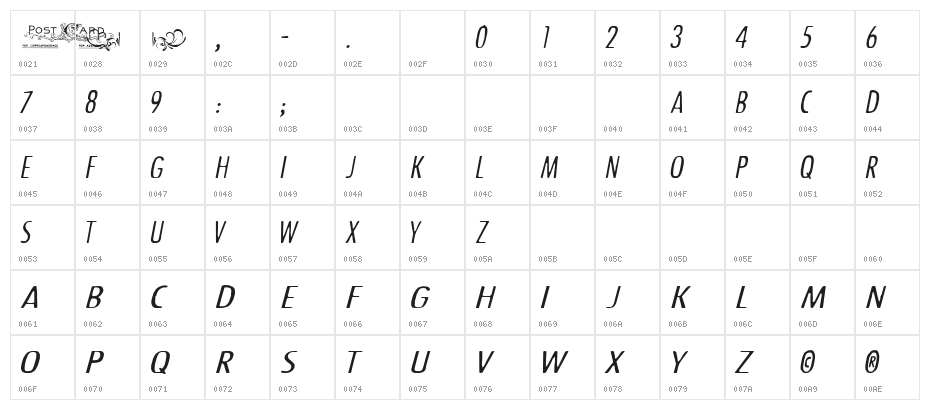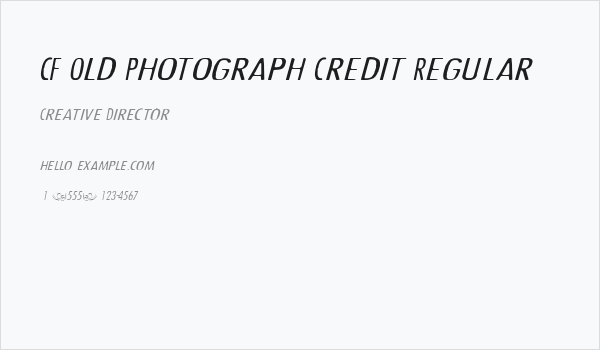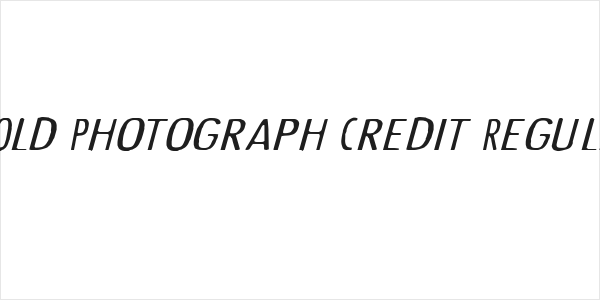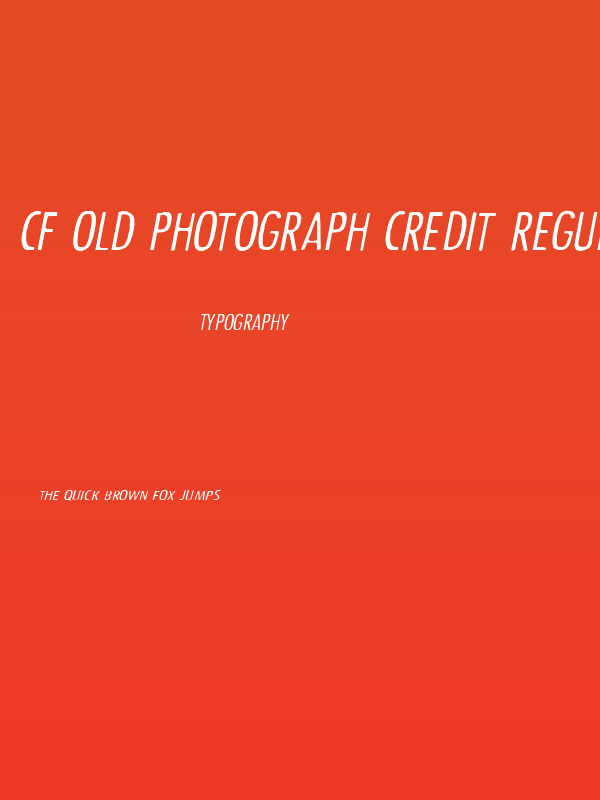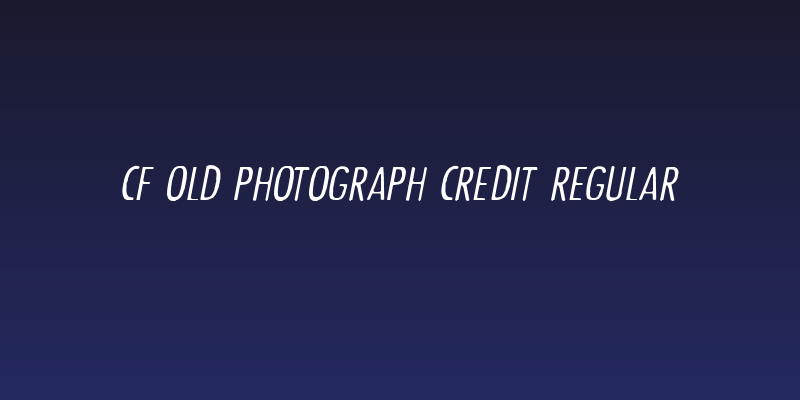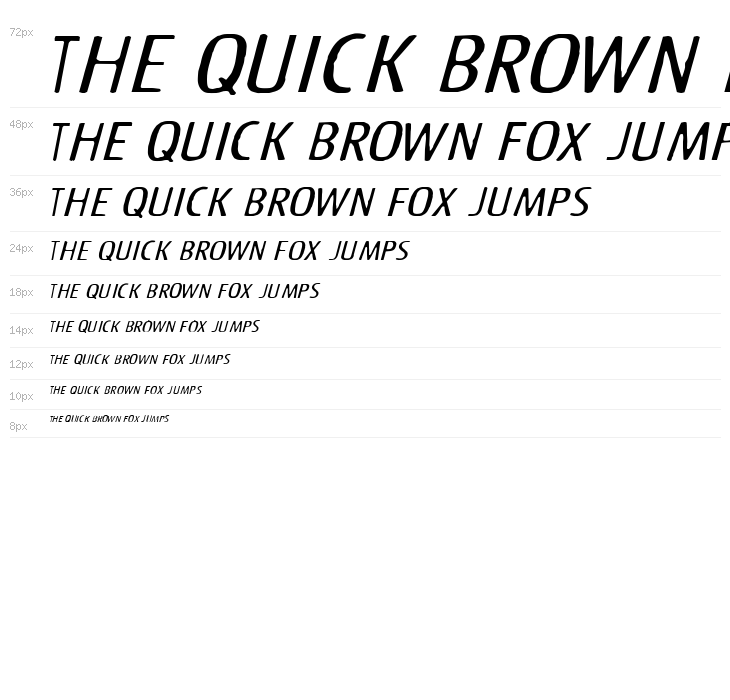
CF Old Photograph Credit Regular Font
CF Old Photograph Credit Regular Description
This font exudes a vintage charm reminiscent of old postcards and classic signage. The letters are slightly slanted, giving a sense of movement and elegance. The uppercase letters are bold and distinct, while the lowercase letters maintain a consistent style that complements the overall design. The numerals are clear and easy to read, fitting seamlessly with the alphabet. Special characters are ornate, adding a decorative touch that enhances the nostalgic feel. This font is perfect for projects that aim to evoke a sense of history and timelessness.
| Use Case | Logos, Invitations, Decorative Text |
| Proposed Projects | Ideal for vintage-themed designs, wedding invitations, branding for nostalgic products, and decorative signage. |